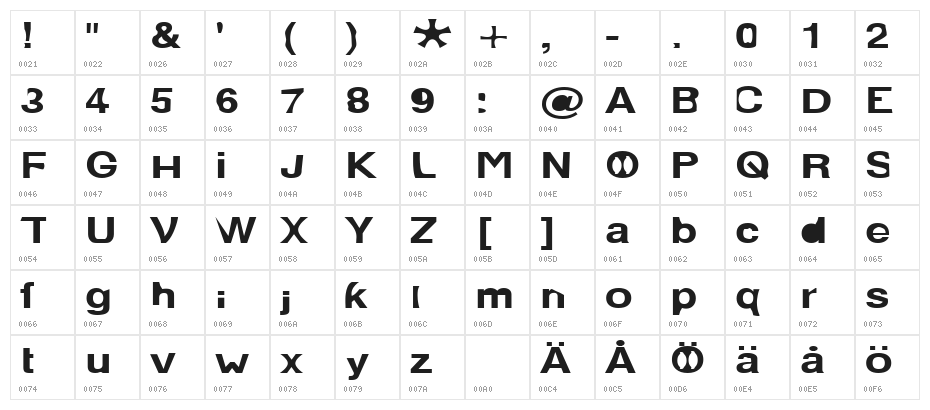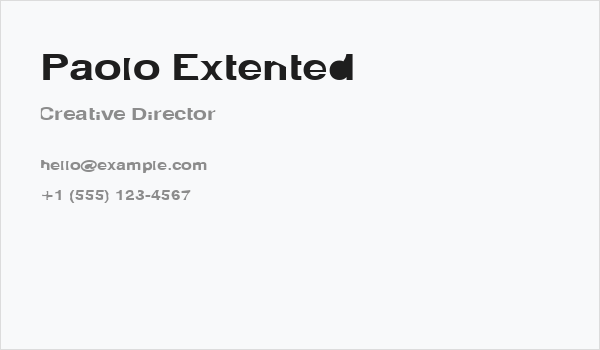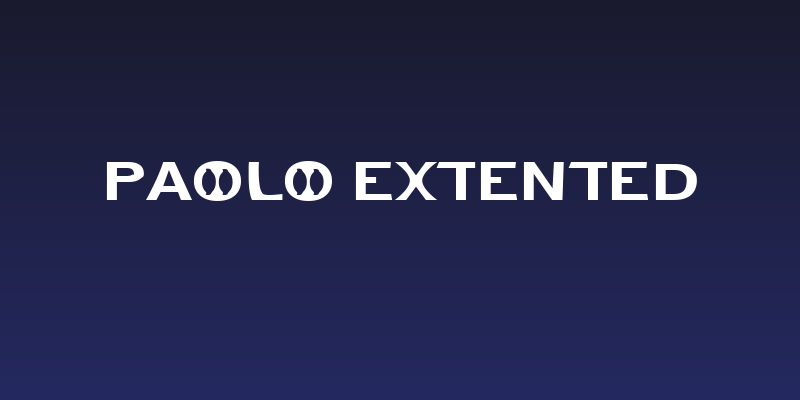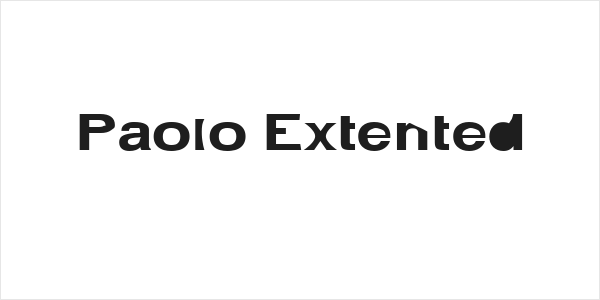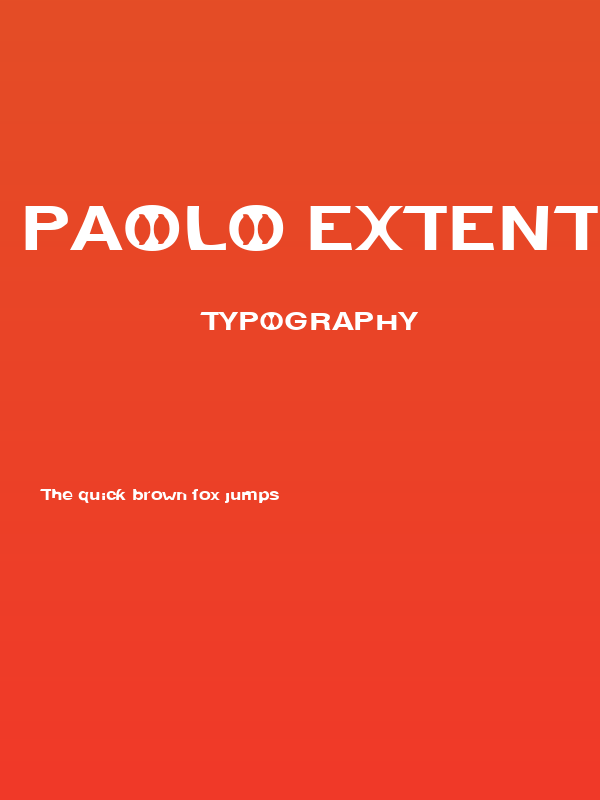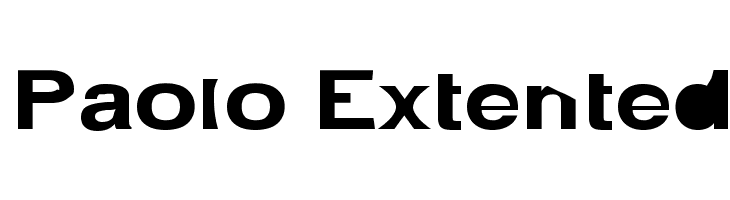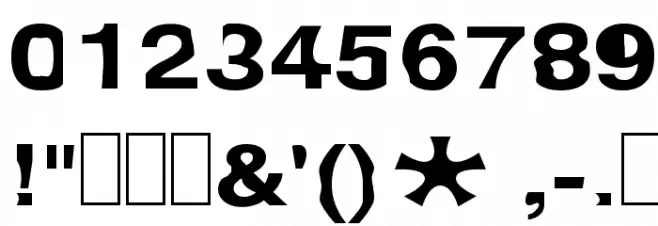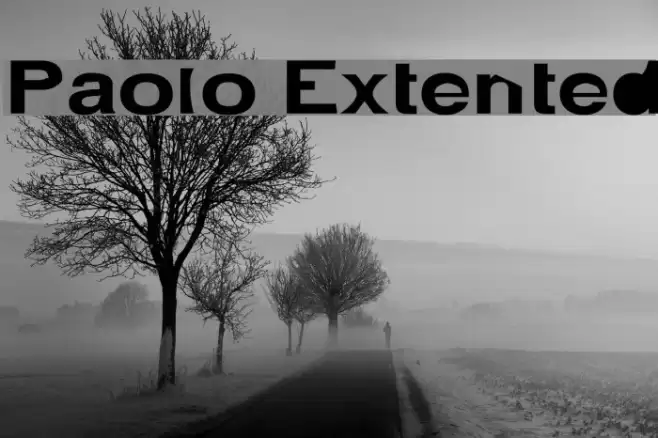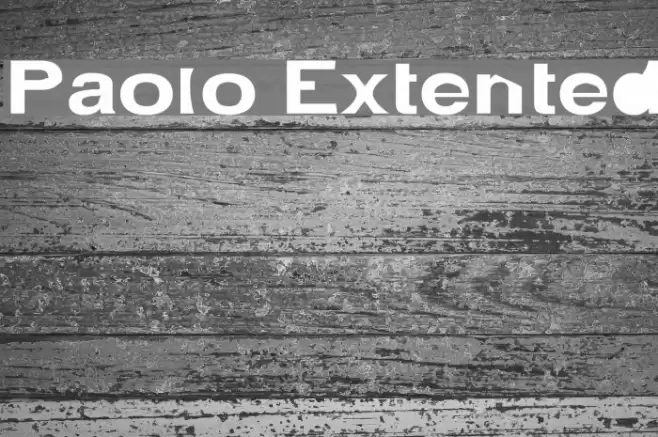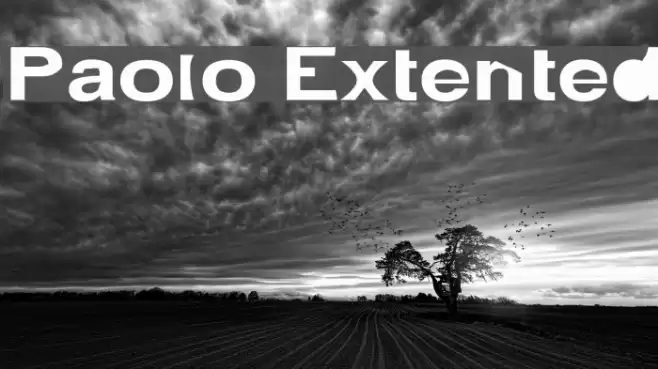
Paolo Extented Font
| Projetos propostos | This font is perfect for branding projects, advertising campaigns, and any design work that requires a strong, modern typeface. Its boldness makes it suitable for posters, logos, and digital media. |